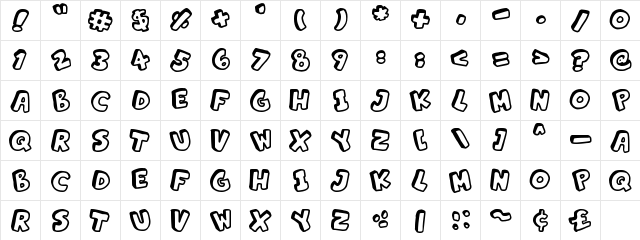
Alphabet Souplings Regular
Design Context for Alphabet Souplings Typeface
Alphabet Souplings is a composed and adaptable typeface that performs quietly and consistently across a wide range of design contexts.